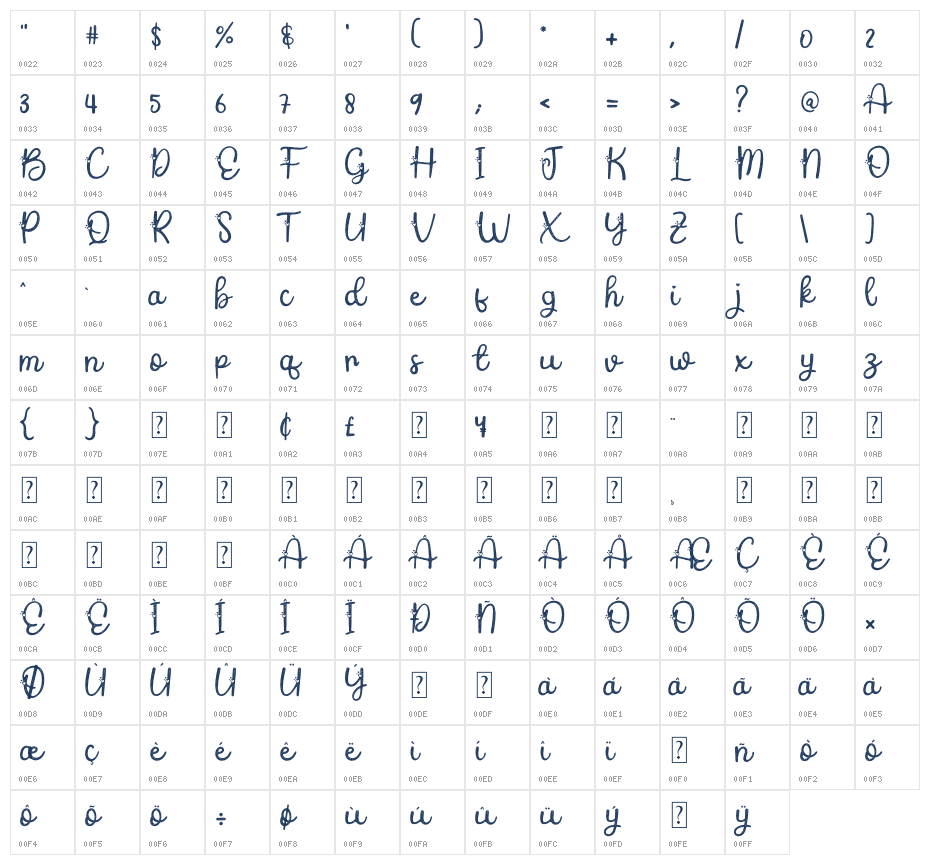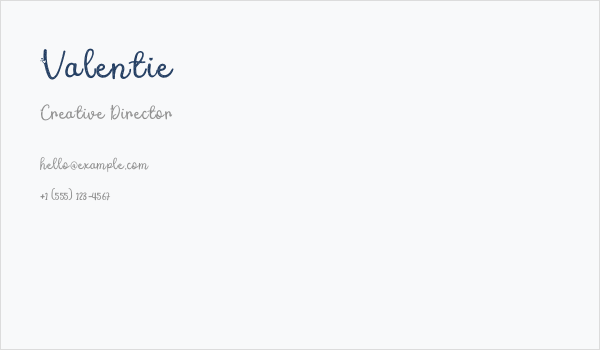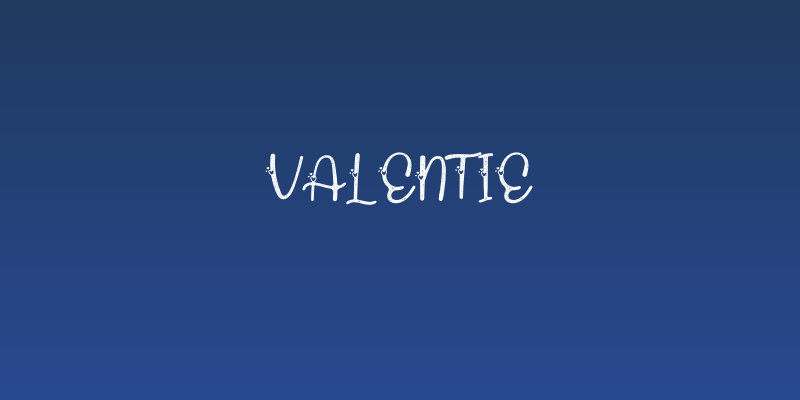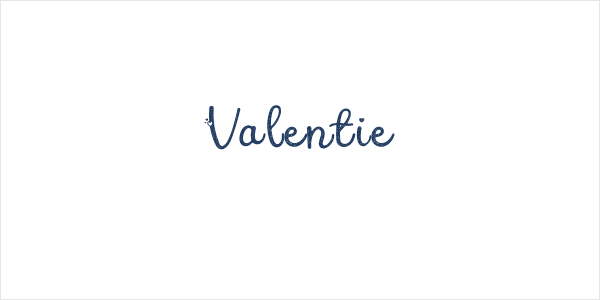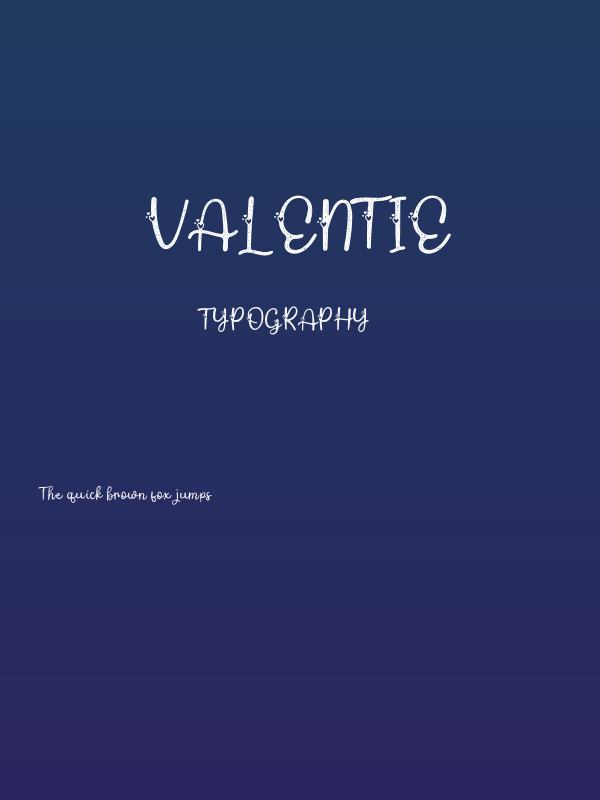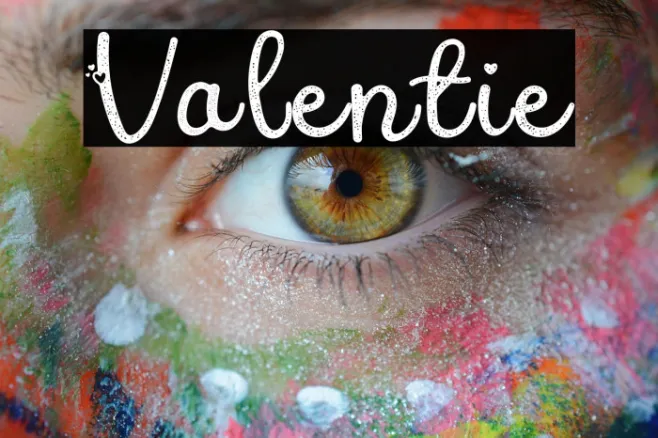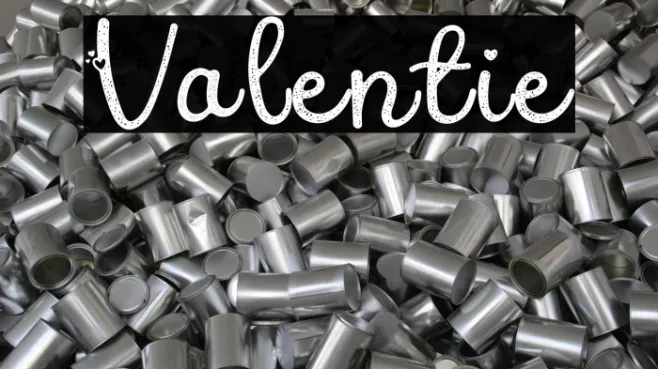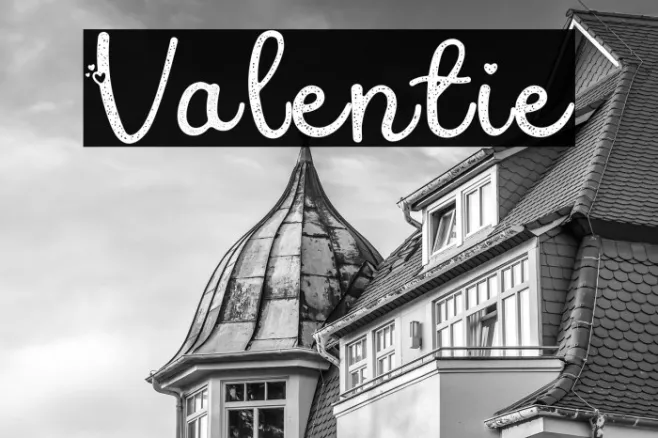
Valentie Font
Valentie Description
A playful, handwritten script font with a casual and whimsical style, featuring smooth curves and a slightly irregular stroke pattern.
| Use Case | Headlines, Invitations, Social media posts, Children's products |